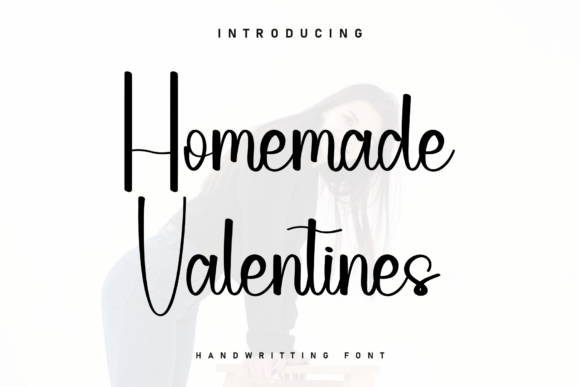
Love in Every Letter: The Charm of Homemade Valentines Font
There’s something magical about sitting down with a cup of hot cocoa, a blank page, and a pen that just flows with creativity. The blank page stares back at you, and suddenly, the words start pouring out. It’s moments like these that remind us of the joy of handwritten love letters, postcards, and, of course, Valentine’s Day cards.
For designers looking to add a touch of warmth and personality to their projects, Homemade Valentines Font is the perfect solution. This beautiful handwritten font features characters that dance along the baseline, creating a cozy accent that’s sure to delight. Whether you’re working on a Valentine’s Day campaign or just want to add a little love to your everyday designs, Homemade Valentines Font is the perfect choice.
Key Features of Homemade Valentines Font
- Font Styles: This font includes 2 unique styles – a distressed version and a regular version, perfect for adding a personal touch to your designs.
- Resolution: Optimized for high-resolution displays, this font looks great on both print and digital materials.
- Unique Characteristics: The distressed version of the font features subtle texture and wear, giving it a handmade, vintage feel that’s perfect for adding a touch of whimsy to your designs.
- Legibility: Despite its distressed appearance, the font remains highly legible, making it suitable for use in a wide range of applications, from invitations to greeting cards.
Review of Homemade Valentines Font
As a designer, I was excited to dive into the Homemade Valentines Font. On the plus side, I appreciate the font’s whimsical, hand-drawn feel ✨. It’s perfect for creating a cozy, personal atmosphere, especially for Valentine’s Day-themed designs. The font’s irregularities and imperfections add a charming, human touch that can make your designs stand out.
Here are some of the font’s strengths:
- Unique, handmade aesthetic ✨
- Perfect for Valentine’s Day and other heart-themed designs
- Wide range of character variations for added personality
However, I do have some reservations about the font’s limitations ⚠️:
- May be difficult to read in smaller sizes
- Not suitable for formal or professional designs
- May not be ideal for large blocks of text
Overall, I think the Homemade Valentines Font is a great choice for designers looking to add a personal touch to their Valentine’s Day designs. While it may have some limitations, its unique charm and whimsical feel make it a great addition to any designer’s toolkit.
Practical Application Guide for Homemade Valentines Font
To get the most out of the Homemade Valentines Font, use it in creative ways such as: Creating custom Valentine’s Day cards, making personalized gifts, or adding a touch of whimsy to your social media posts.
The Homemade Valentines Font is perfect for: Valentine’s Day designs, wedding invitations, birthday cards, and any other project that requires a playful and romantic touch.